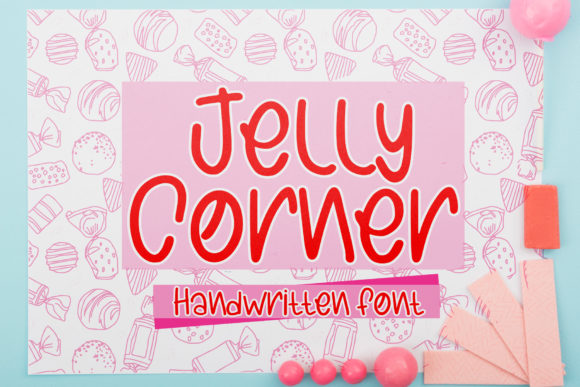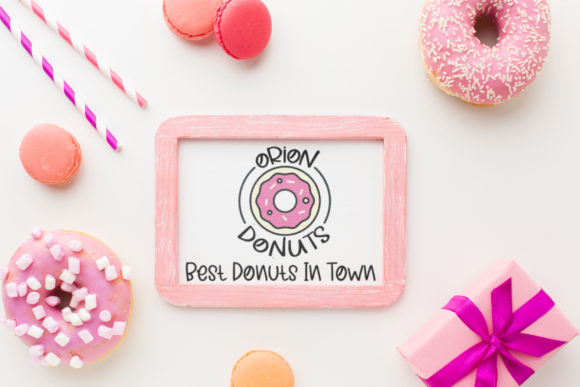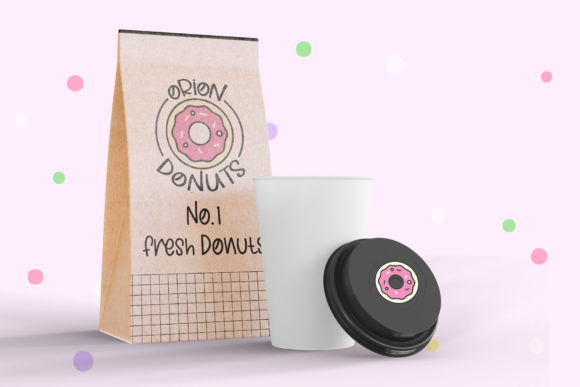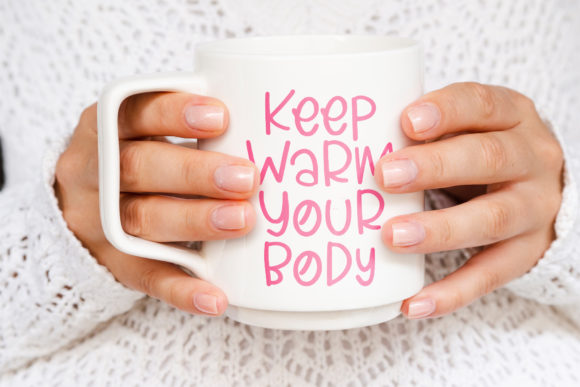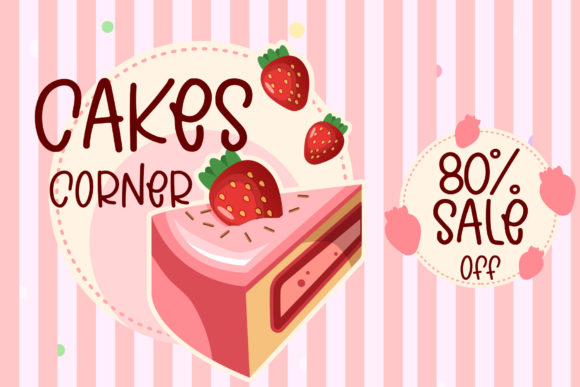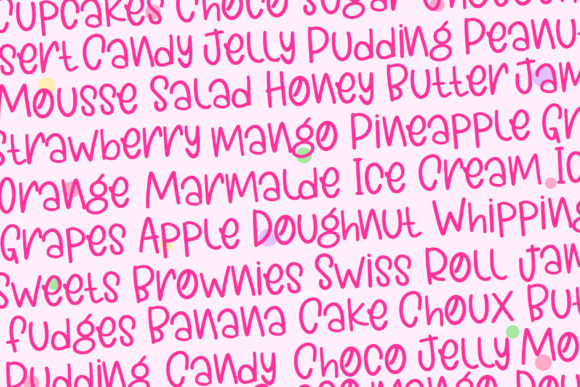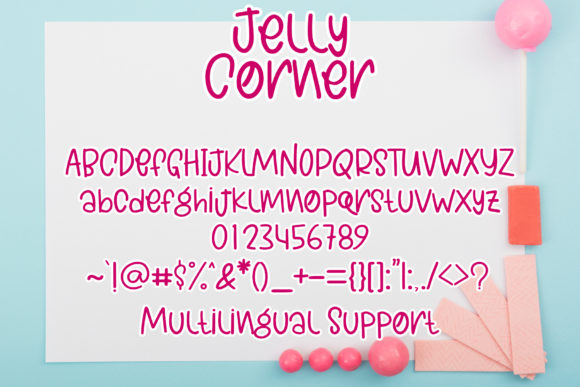
Jelly Corner Font
About Jelly Corner Font
Introducing “Jelly Corner” – a warm and jolly handwritten font that adds a delightful touch to your designs. Whether you’re using it for crafting, digital designing, presentations, or greeting card making, Jelly Corner is the perfect choice!
Jelly Corner emanates a warm and cheerful vibe with its handwritten style. The playful and lively nature of this font adds a sense of joy and happiness to your creative projects, making it a wonderful choice for a wide range of applications.
Crafting enthusiasts will find Jelly Corner to be a versatile and fun addition to their projects. Its warm and jolly appearance brings a personalized and whimsical touch to handmade crafts, making them even more delightful.
Digital designers will appreciate the charm and versatility of Jelly Corner. Whether it’s designing social media graphics, website elements, or digital artwork, this font infuses a sense of cheerfulness and playfulness into the digital space, capturing the attention of viewers.
When it comes to presentations, Jelly Corner adds a touch of vibrancy and liveliness. It helps create an engaging and energetic atmosphere, ensuring that your content leaves a memorable impression on the audience.
Greeting cards become even more festive with the use of Jelly Corner. Its warm and jolly style complements various occasions, from birthdays to holidays, adding a joyful and lively touch to your heartfelt messages.
In summary, Jelly Corner is a warm and jolly handwritten font that brings a delightful and cheerful vibe to your designs. Its versatility makes it suitable for crafting, digital designing, presentations, and greeting card making. Embrace the playful charm of Jelly Corner and let it add a touch of joy and liveliness to your creative projects.